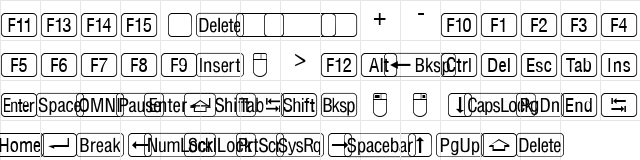
FZ DING 27 Normal
FZ DING 27 takes a measured approach to typography — its balanced proportions and neutral character make it a reliable workhorse for both digital and print work.